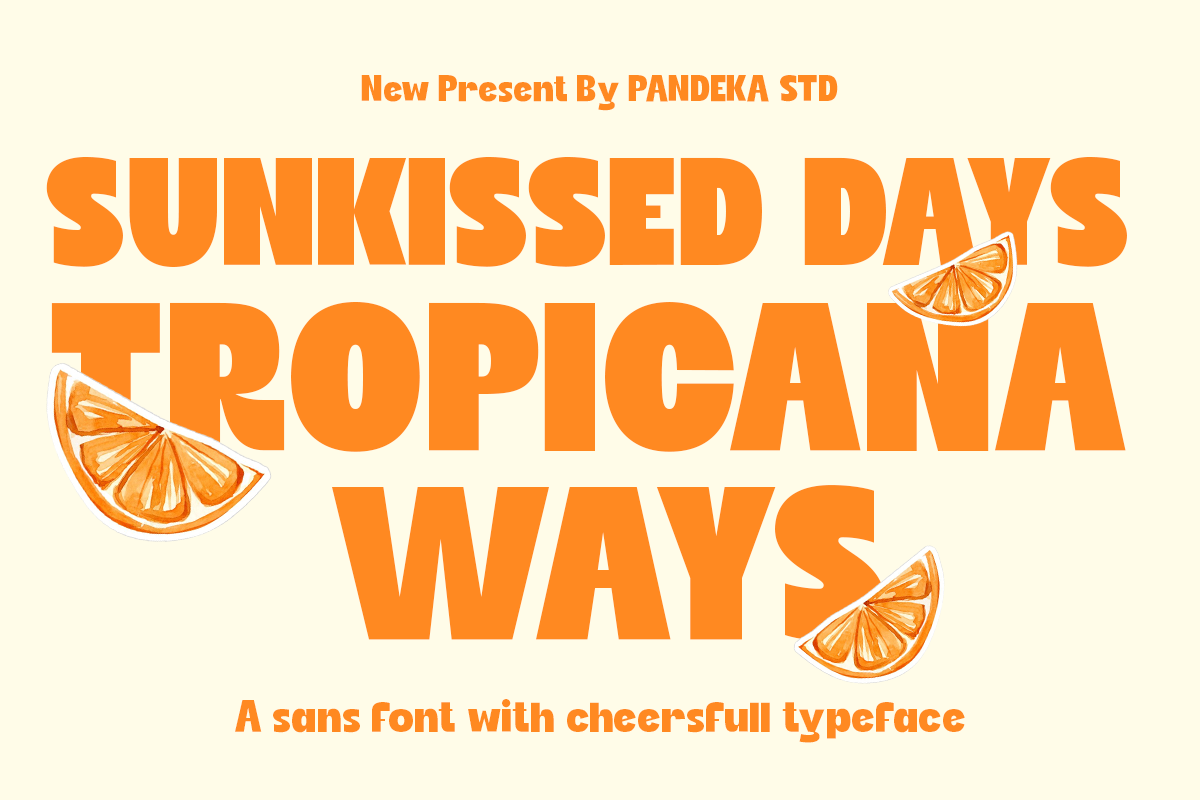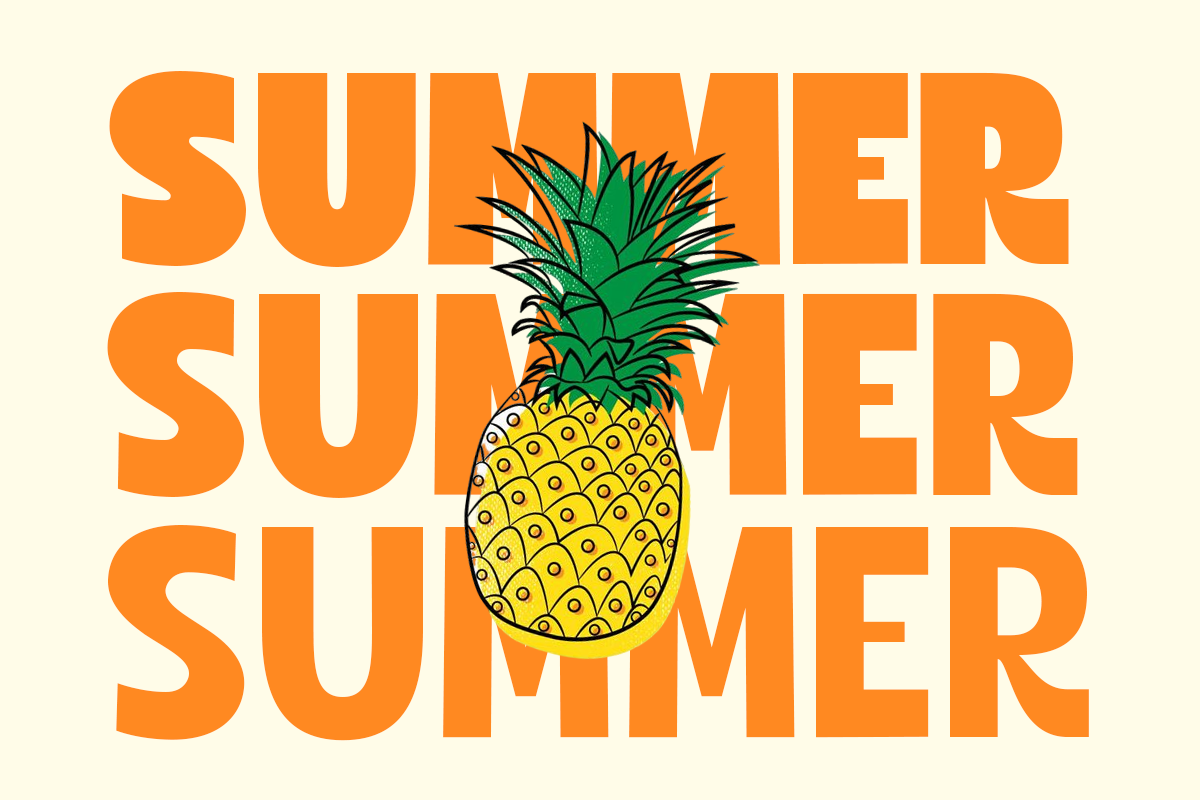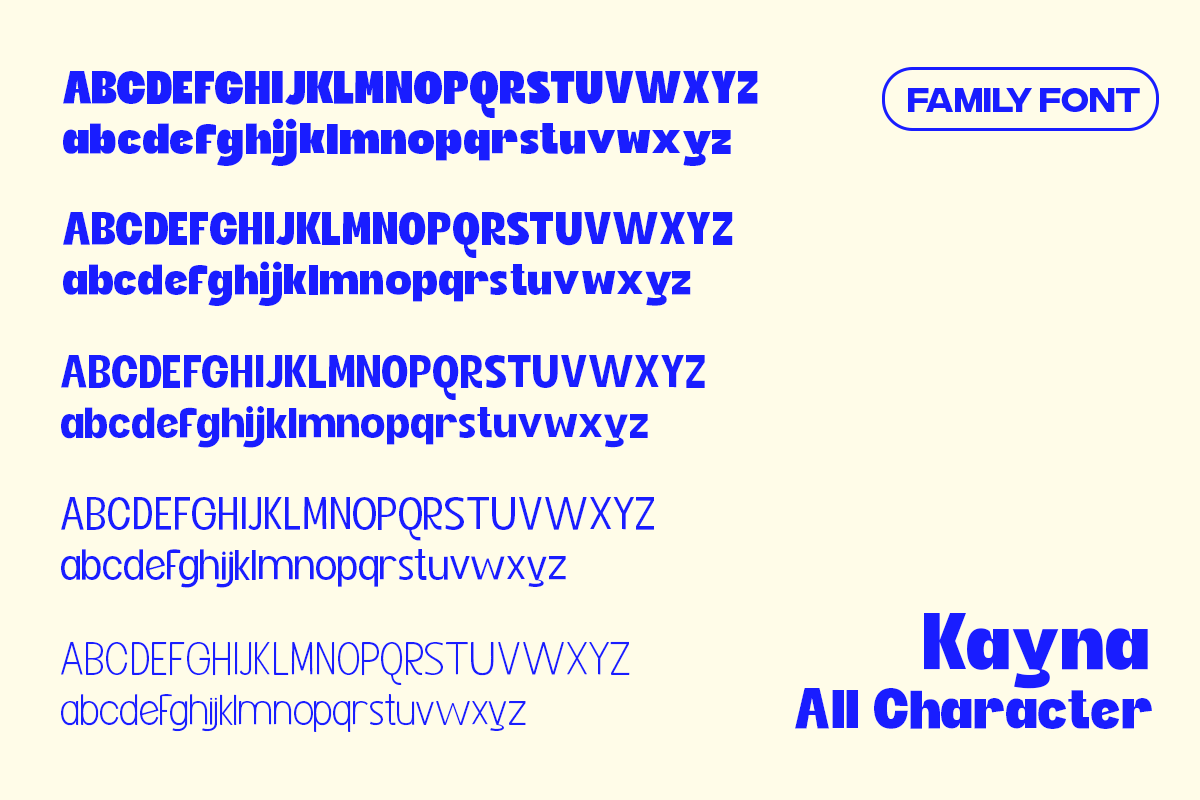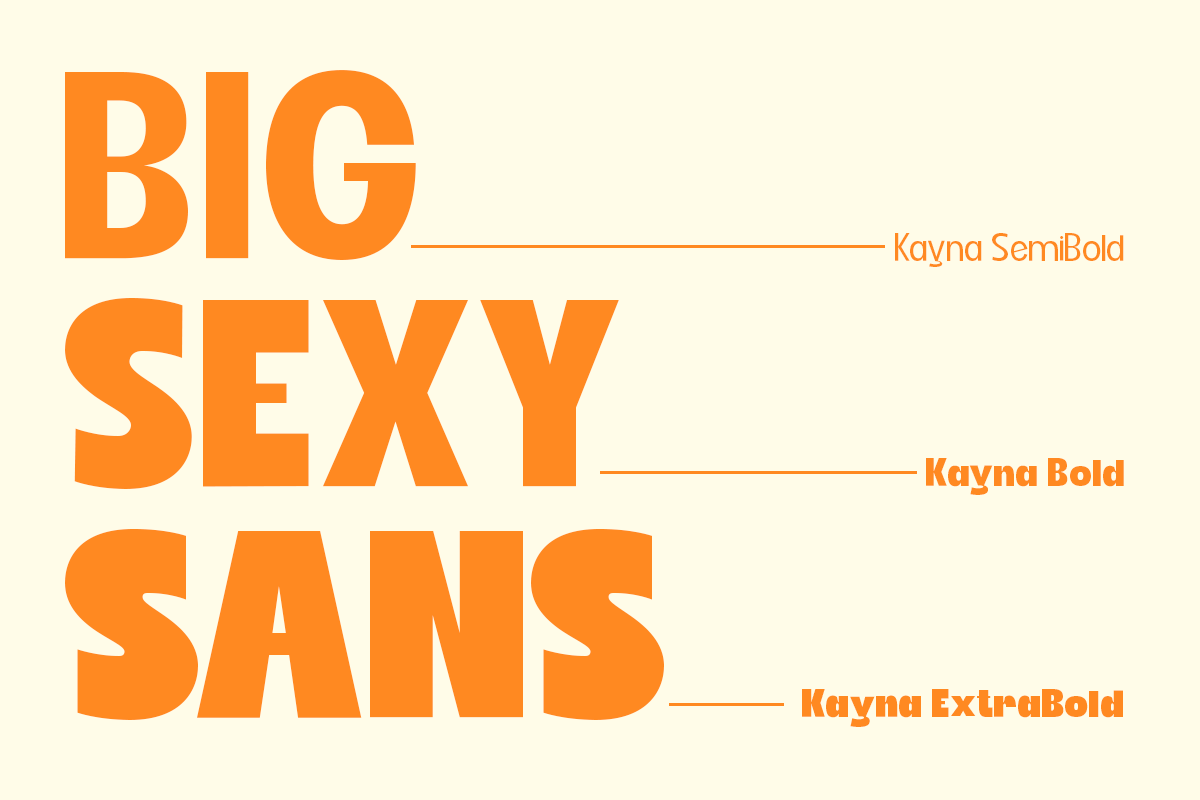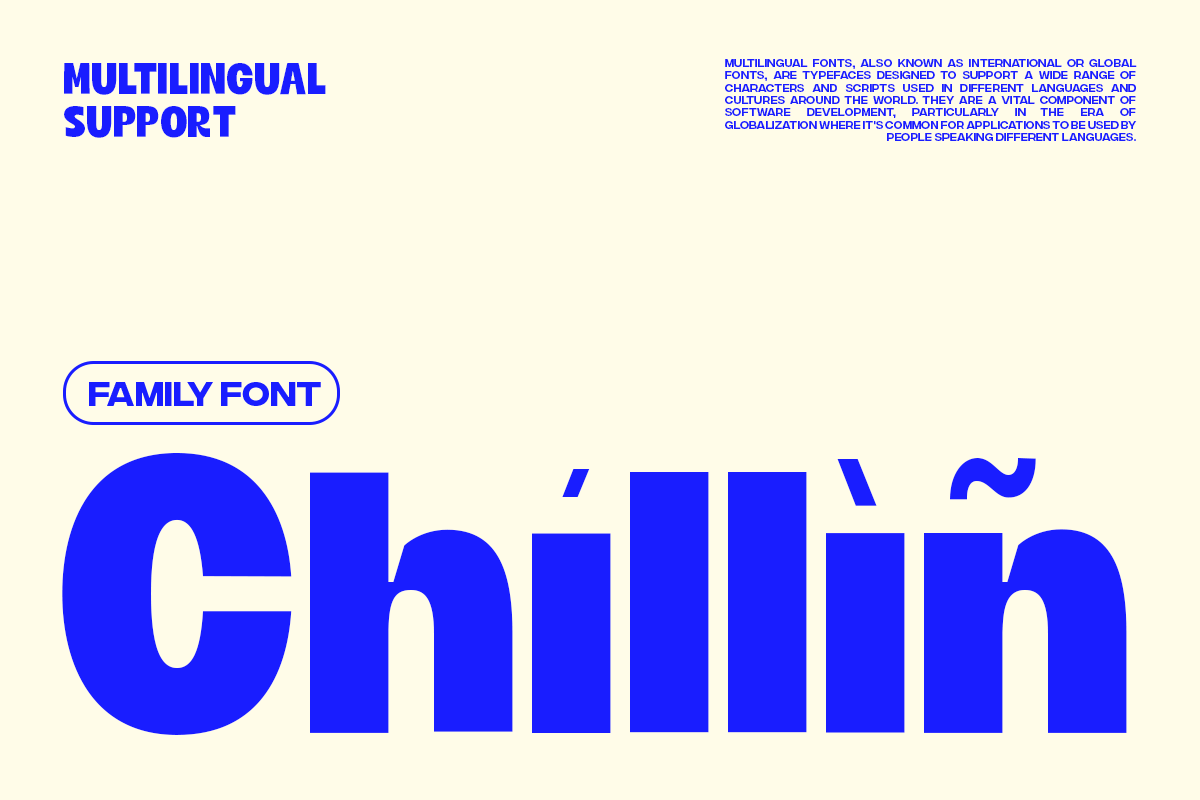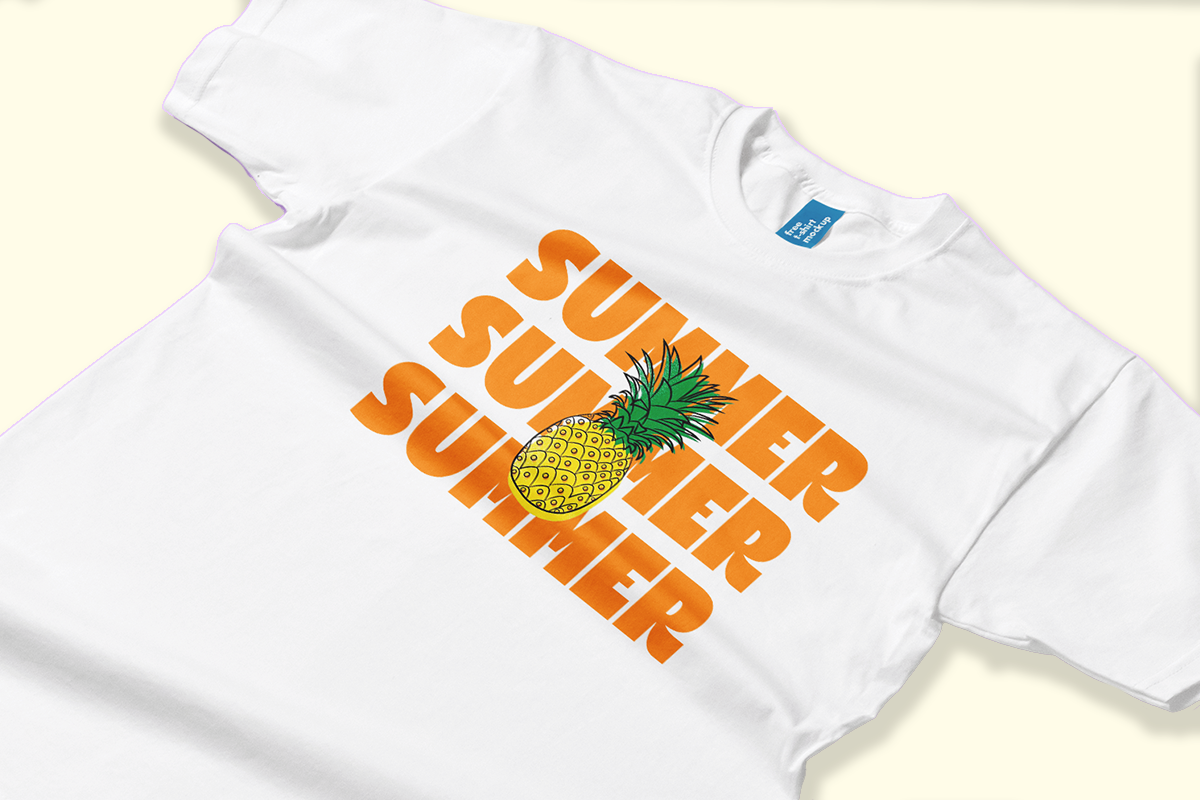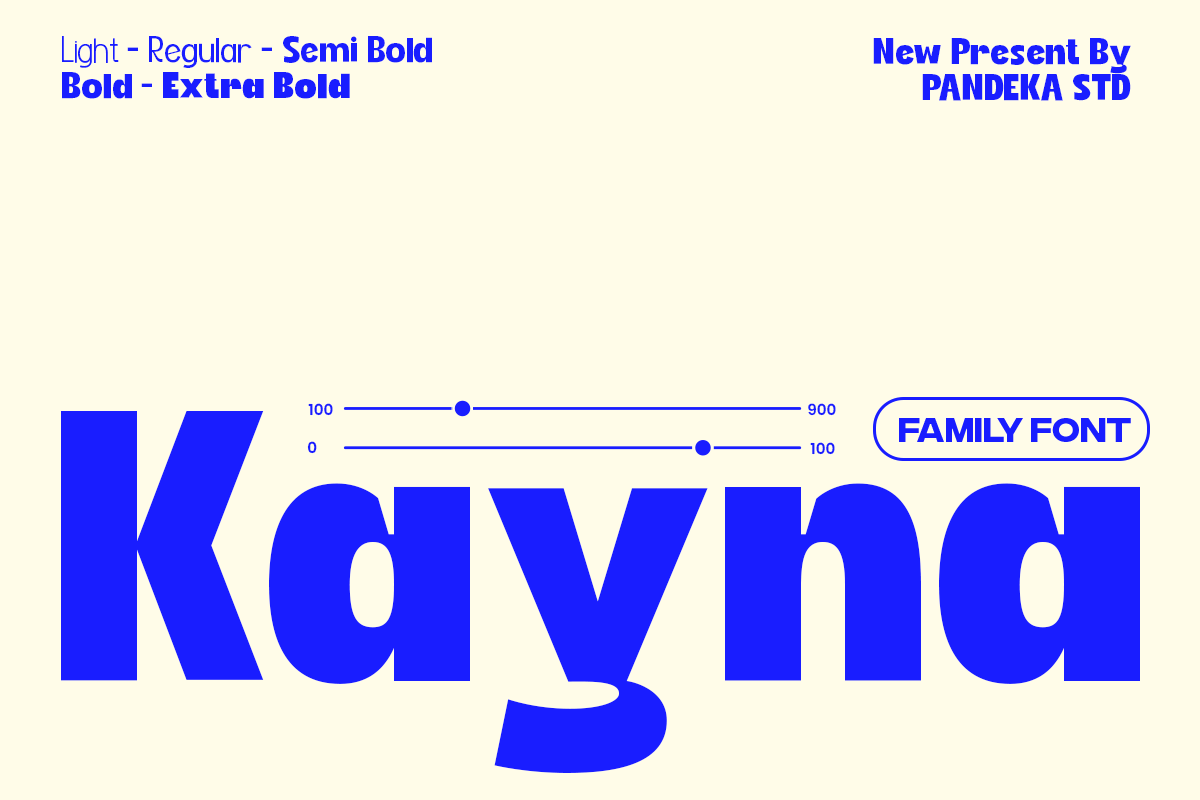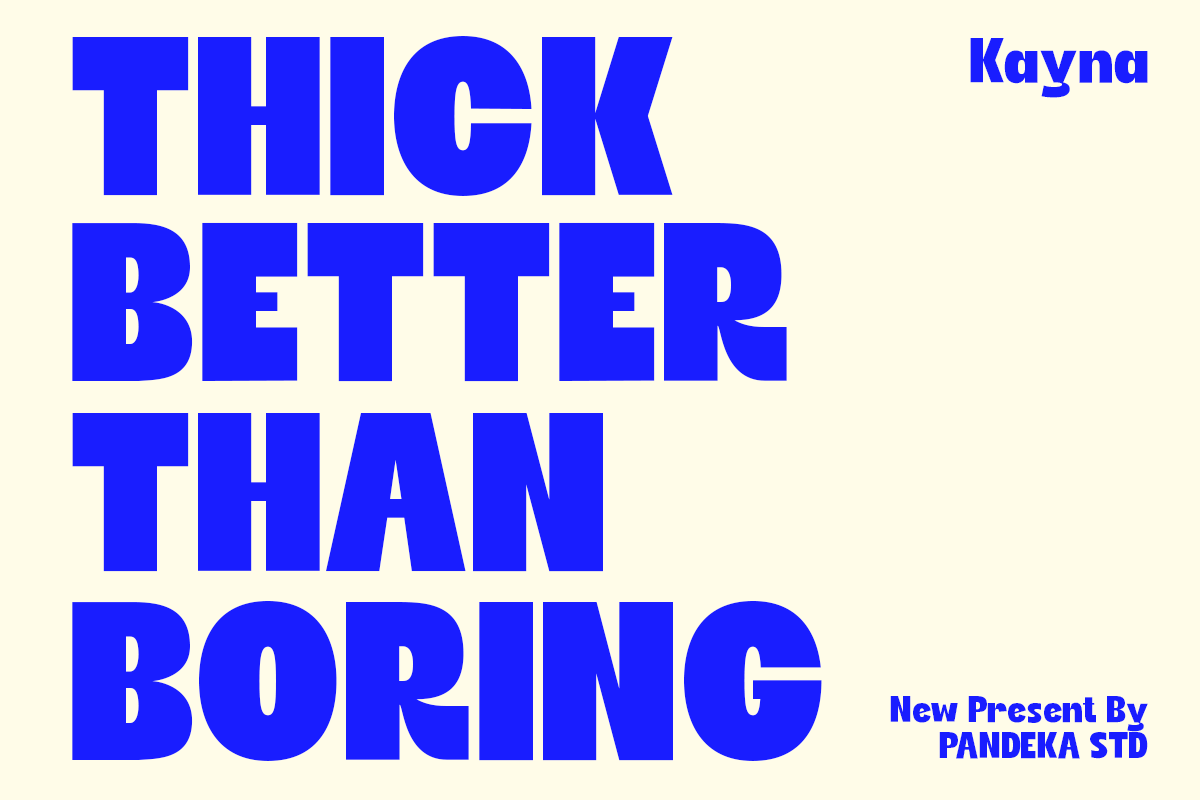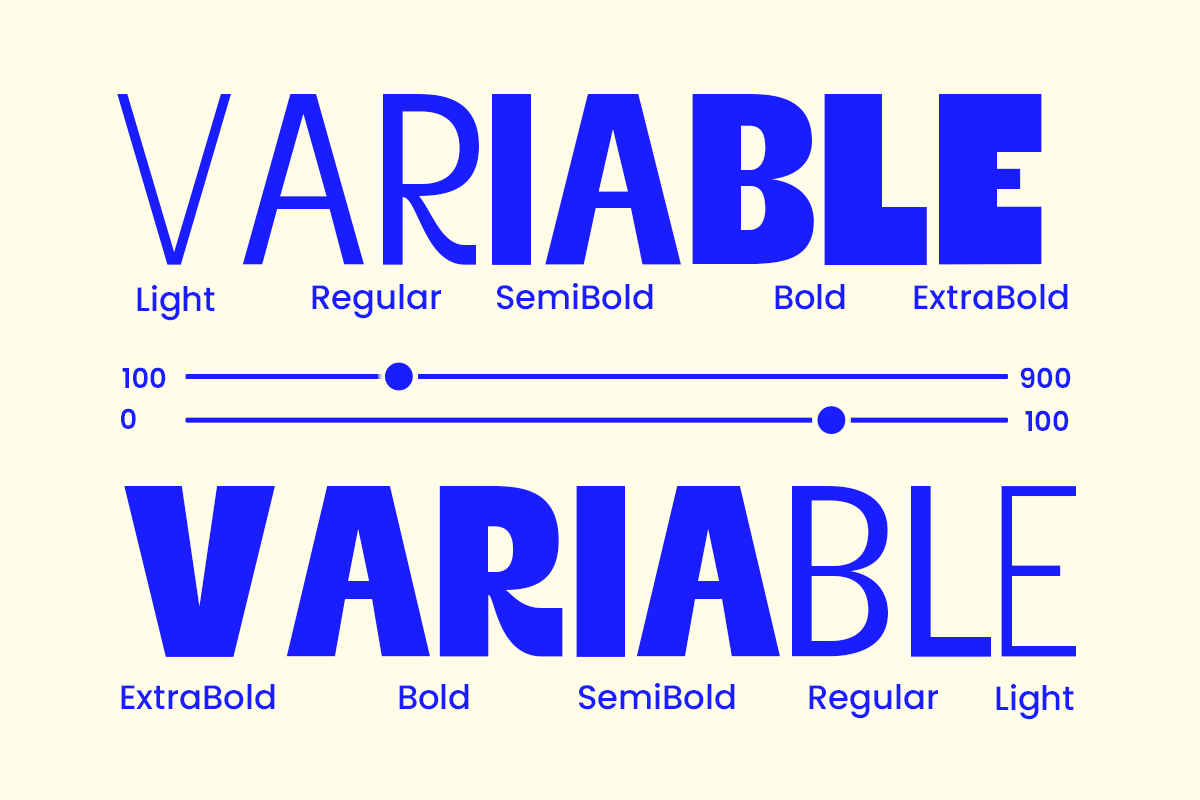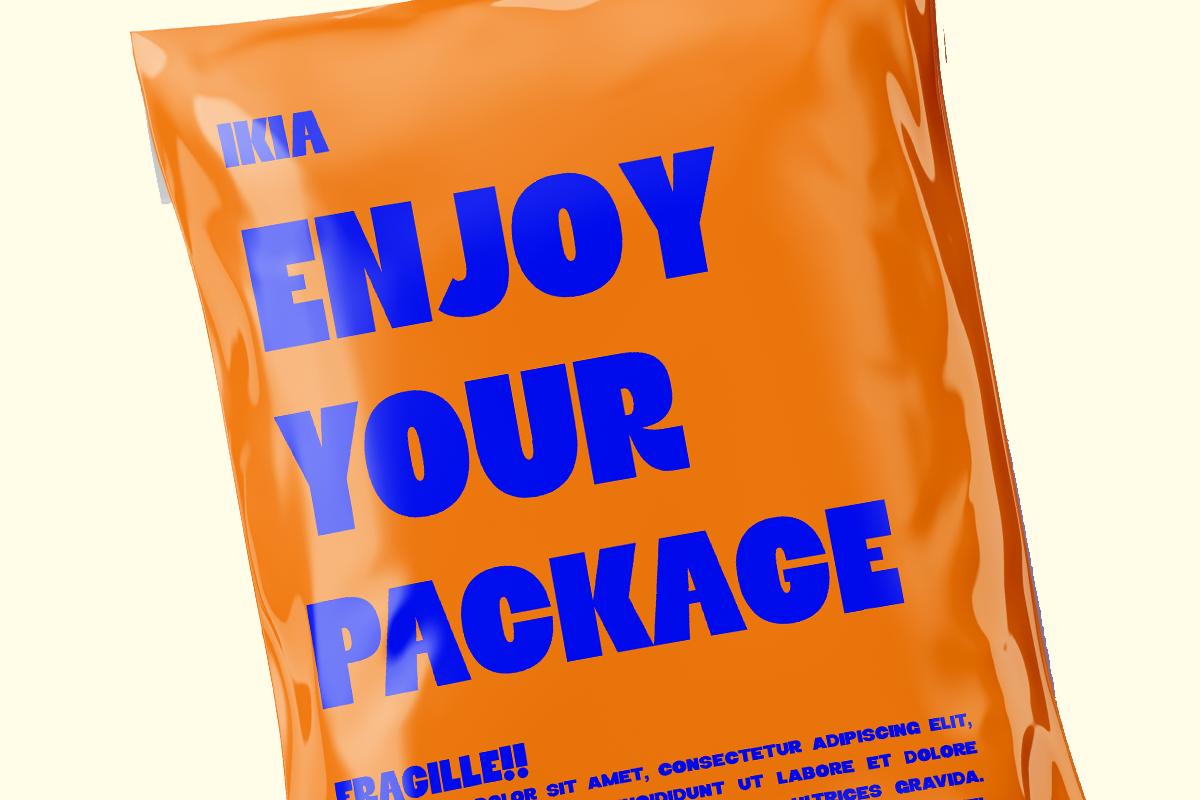
Kayna - Modern Family Font
Introducing Kayna – a versatile sans-serif font family by Pandeka Studio!
Kayna is a clean and modern sans-serif font family that comes in 5 distinct variations: Light, Regular, Semi Bold, Bold, and Extra Bold. Each weight is designed to provide flexibility and legibility, making Kayna perfect for a wide range of design projects.
Kayna is sleek, stylish, and incredibly adaptable. Whether you need a font for headlines, body text, or anything in between, Kayna delivers with its contemporary aesthetic and high readability. Its smooth curves and balanced proportions make it a great choice for both digital and print applications.
- 5 Font Weights (Light, Regular, Semi Bold, Bold, Extra Bold)